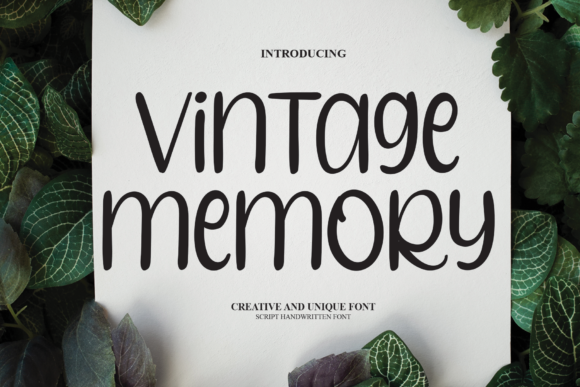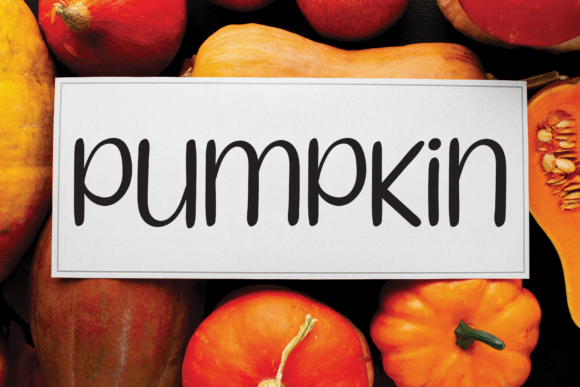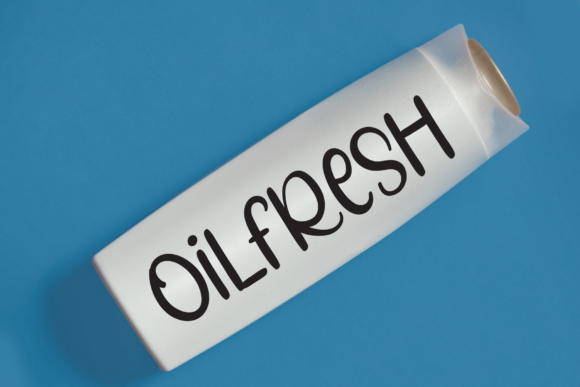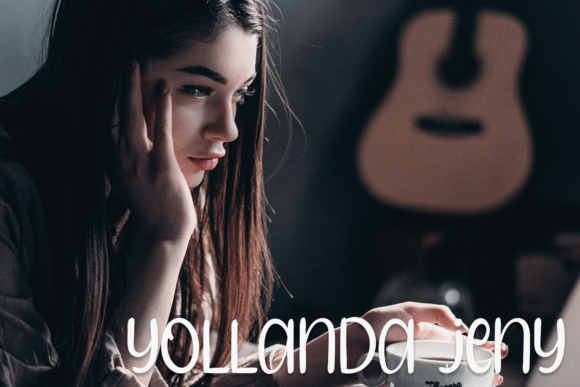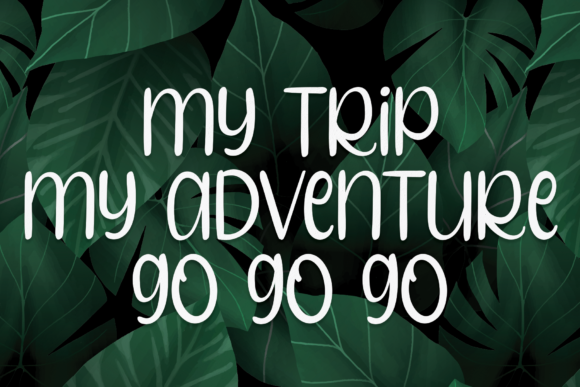
About Vintage Memory Font
Vintage Memory is a charming and clean handwritten font that brings a touch of nostalgia and playfulness to your design projects. With its whimsical and timeless letterforms, this font offers a versatile option for various branding, print, and digital applications.
Perfect for logos and visual identity, Vintage Memory adds a sense of vintage flair and character to your brand’s representation. Its handwritten style and unique quirks can help create a distinctive and memorable logo that stands out from the crowd, making it a great choice for businesses looking to evoke a sense of nostalgia and creativity.
The font’s playful and clean design makes it well-suited for t-shirt printing and sport designs. Whether you’re creating retro-inspired apparel, sporty graphics, or casual wear, Vintage Memory’s lighthearted and approachable characters can contribute to a relaxed and fun look that resonates with a wide range of audiences.
Vintage Memory’s versatility and retro charm make it a fitting choice for various contexts. It’s an excellent option for branding materials, packaging, posters, social media graphics, and more. Its vintage yet clean aesthetic ensures that it can complement a variety of design styles, adding a touch of whimsy and authenticity to your projects.
In addition to branding and sport-related designs, Vintage Memory’s playful and clean appearance makes it suitable for a range of creative projects. It can bring a sense of nostalgia to invitations, greeting cards, typography-based artwork, editorial layouts, and other design endeavors. Its timeless yet contemporary appeal helps create designs that capture the essence of both past and present.
Overall, Vintage Memory is a delightful and clean handwritten font that adds a hint of vintage charm and playfulness to your creations. Its unique design makes it suitable for branding, t-shirt designs, sport graphics, and a variety of other applications, allowing you to infuse your designs with a touch of retro character and style.